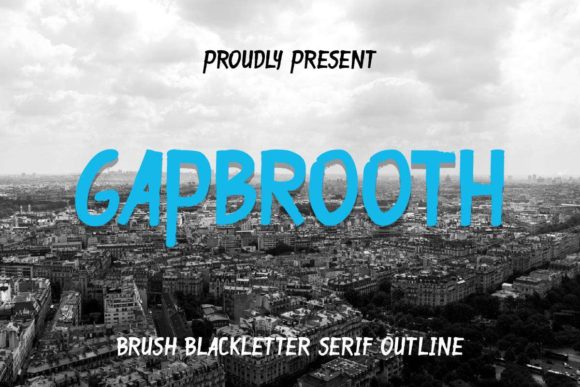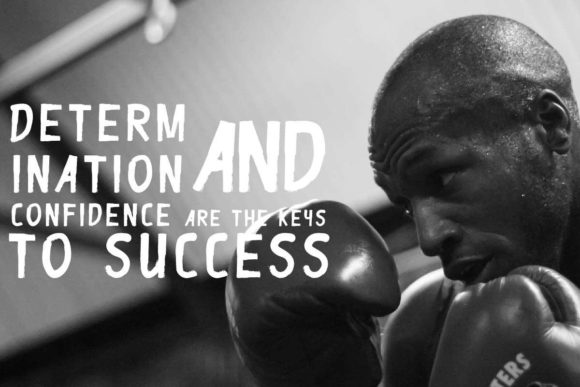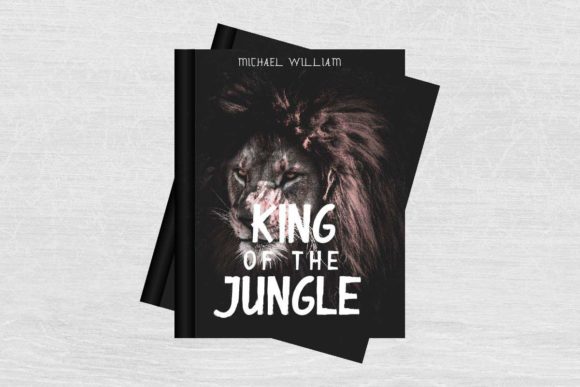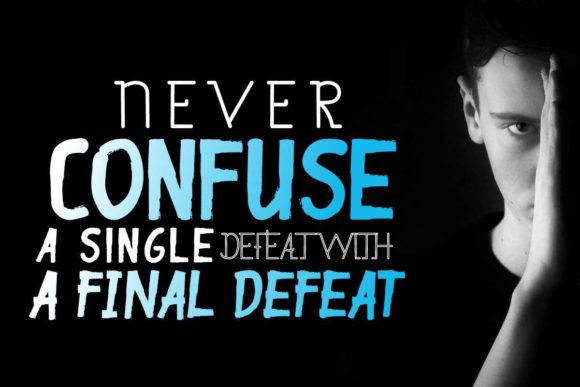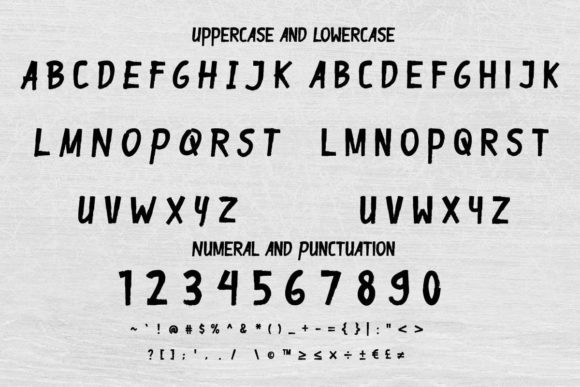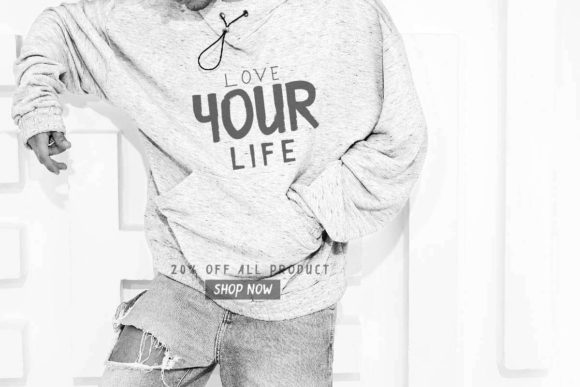
The Gapbrooth Font: A Cute and Friendly Companion for Your Creative Projects
I still remember the time I was working on a DIY project for a client’s wedding invitation. I had the design all planned out, but I just couldn’t find the right font to bring it all together. The invitation needed to be playful, yet elegant, and I spent hours scouring the internet for the perfect match. That’s when I stumbled upon the Gapbrooth font. It was love at first sight! 💕
Gapbrooth is a cute and casual handwritten font with an incredibly friendly feel. Whether you’re looking for fonts for Instagram or calligraphy scripts for DIY projects, Gapbrooth will turn any creative idea into a true piece of art! In this article, I’ll share my honest review of the font, provide a practical guide on how to use it, and explore similar fonts that you might enjoy.
- Gapbrooth has a unique, hand-drawn feel that’s perfect for creating personalized and playful designs.
- The font is incredibly versatile and works well for a variety of projects, from social media graphics to wedding invitations and DIY crafts.
- It’s easy to read and understand, making it a great choice for body text and captions.
- The font comes with a range of OpenType features, including glyphs and stylistic alternates, which allow for endless customization options.
- While Gapbrooth is a beautiful font, it may not be the best choice for very formal or professional projects. Its playful nature might not fit the tone you’re aiming for.
- Some users have reported issues with kerning and spacing, particularly when using the font at smaller sizes. ⚠️
The Story Behind Gapbrooth
While the origins of Gapbrooth are shrouded in mystery, it’s clear that the font was designed with love and care. The creator of Gapbrooth wanted to craft a font that would bring a smile to people’s faces and inspire creativity. And, judging by the font’s popularity, they’ve certainly succeeded! 🎉
| Font Name | Gapbrooth Font |
| Author | EdricStudio |
A: Gapbrooth is a versatile font that’s perfect for a wide range of projects, from social media graphics to wedding invitations and DIY crafts.